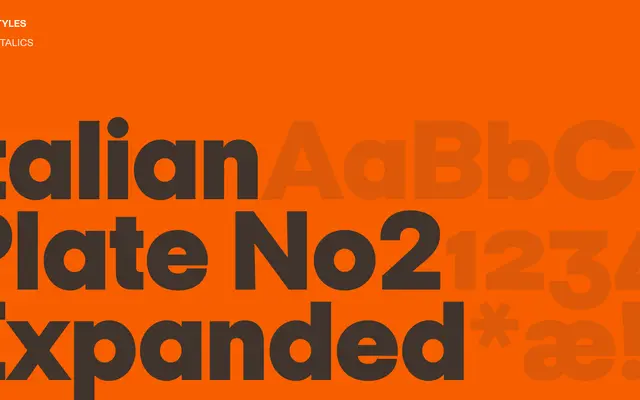
Italian Plate No2 Expanded
Italian Plate No2 Expanded specimen from Playtype
A wide-set grotesque from Playtype drawing on industrial plate lettering conventions, cut for display and headline use.
Italian Plate No2 Expanded sits within Playtype's Italian Plate series, taking the grotesque letterforms of early industrial plate lettering and stretching them into an expanded width suited to large-scale and headline settings. The page content is sparse, offering little technical detail on weight range or language coverage. What the name and foundry context suggest is a typeface pitched at editorial and branding work where a wide, confident grotesque is needed.
The name and expanded width suggest a stretched grotesque or industrial sans rooted in early 20th-century plate lettering traditions, consistent with Playtype's geometric-leaning grotesque output.